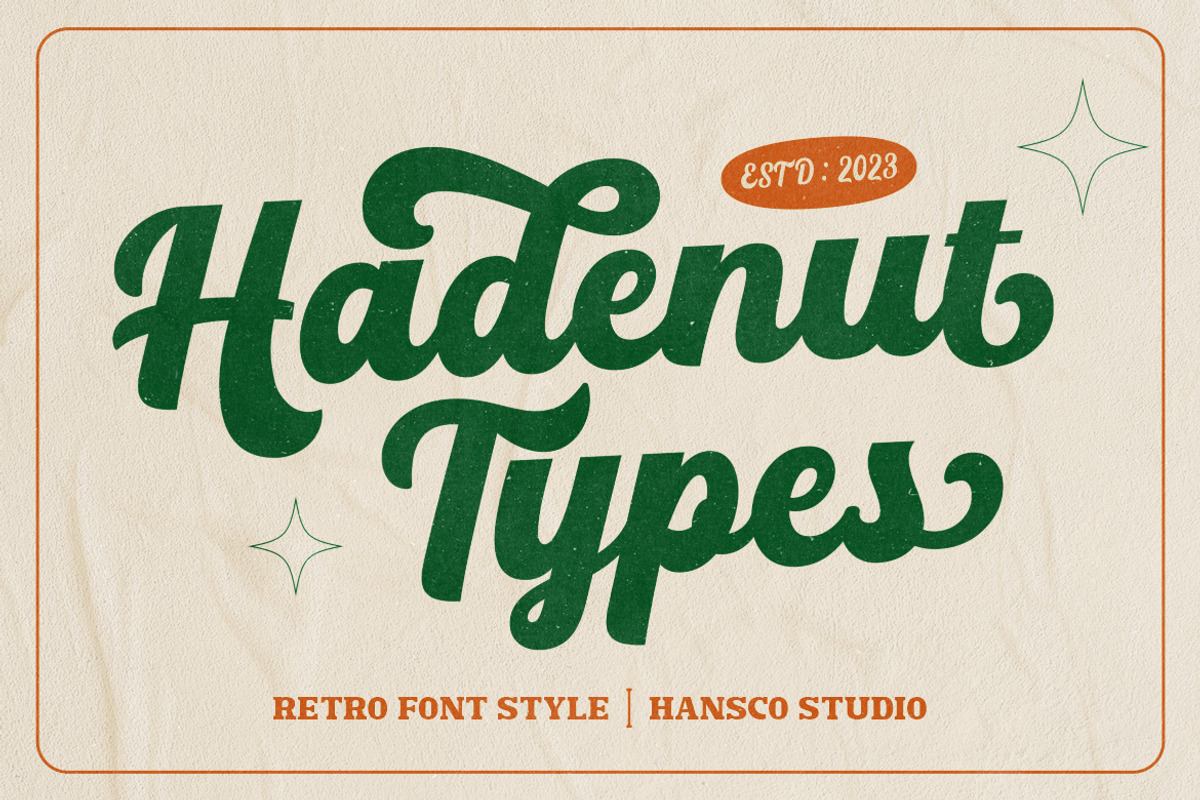
Hadenut Handwritten Font Retro Free Download
Bring back the charm of the past with the Hadenut Handwritten Font Retro Free Download — a stylish and nostalgic typeface that blends vintage flair with a modern handwritten twist. Perfect for retro branding, apparel design, posters, stickers, and packaging, this font oozes character and creativity.
Hadenut captures the essence of hand-crafted signage and classic advertising, making it an excellent choice for projects that need to feel authentic, fun, and full of personality. Its smooth lines and relaxed vibe give your work a friendly, approachable tone that stands out.